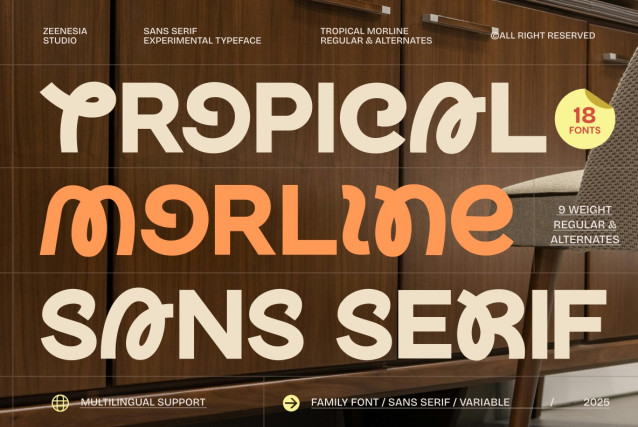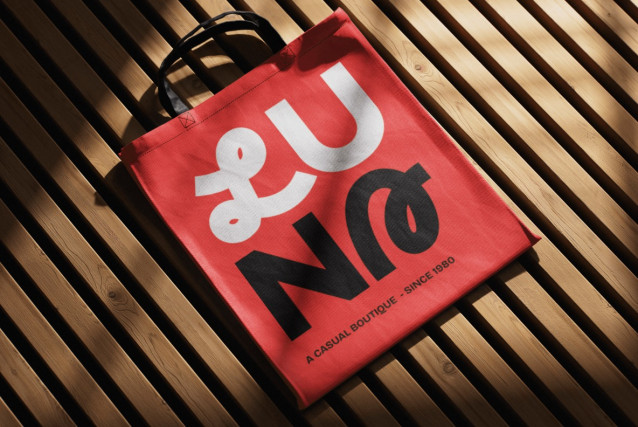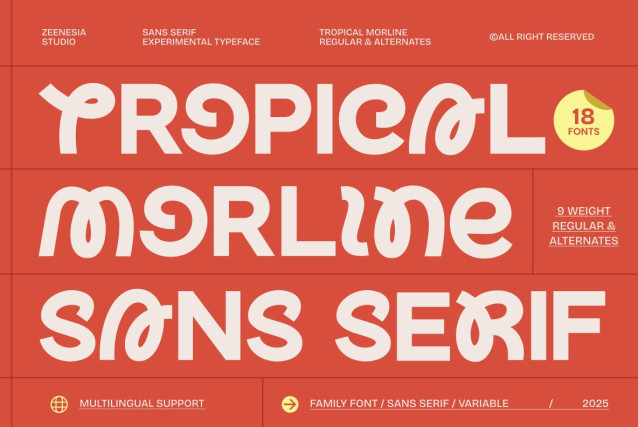
Tropical Moreline Font
Tropical Moreline Font is an experimental sans serif typeface inspired by playful tropical energy and expressive letterforms. Designed with soft curves, bold proportions, and distinctive alternates, it brings a fresh and joyful personality to any design.
This typeface features 2 styles — Regular and Alternate, along with 9 weights ranging from Thin to Black, giving designers full flexibility for both subtle and bold visual expressions. It also includes a Variable Font, making it easy to adjust weight seamlessly for modern workflows.
With rich alternate characters and carefully crafted letterforms, Tropical Morline allows designers to create dynamic, eye-catching compositions while maintaining strong readability and a decorative yet modern feel.
Perfect for branding, posters, packaging, headlines, editorial layouts, and creative projects that demand character and warmth, Tropical Morline stands out without losing versatility. Multilingual support is included.
Tropical Morline — where experimental form meets tropical charm.